What is the Signature Font Bundle?
The Signature Font Bundle is a stylish collection of handwritten signature-style fonts designed to give your projects a natural and personal touch. This bundle includes a variety of smooth, flowing scripts that look like real pen writing, making them perfect for branding, logos, invitations, social media graphics, and product packaging.
Each font is carefully crafted with elegant curves, balanced spacing, and authentic strokes. The letters connect beautifully, creating a realistic signature effect that feels both modern and professional. Whether you are designing for a business brand or a creative project, these fonts help you add charm and personality to your text.
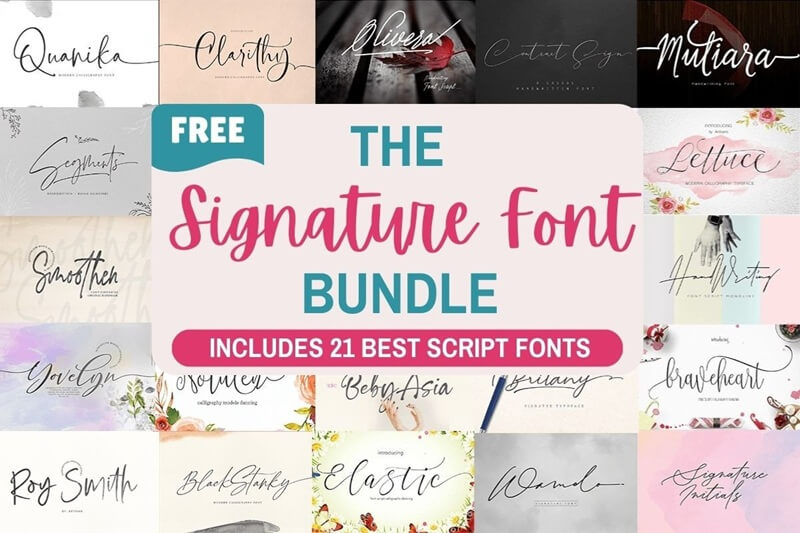
Ainsley Alt